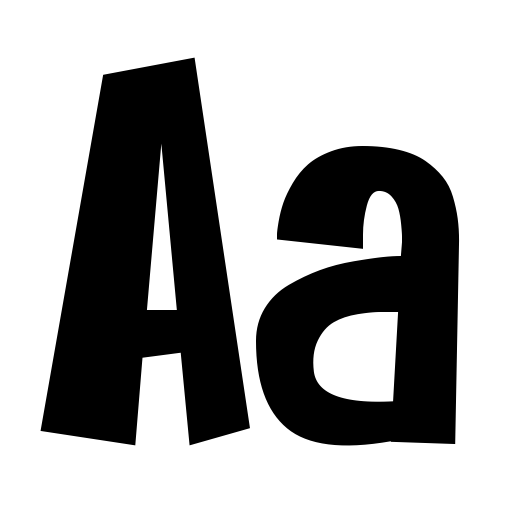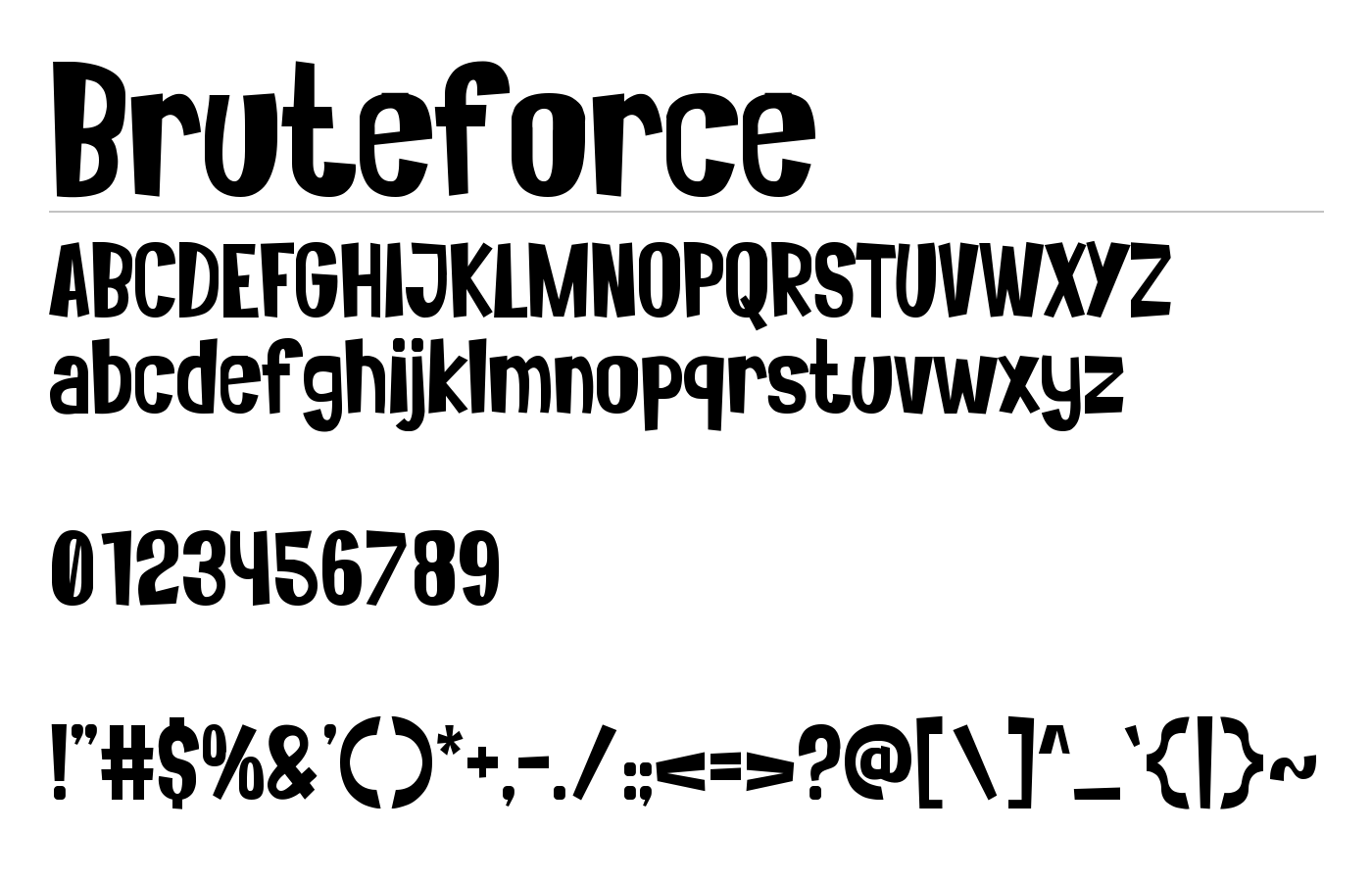
Bruteforce Font is a bold, playful sans serif typeface with a quirky and slightly irregular design that adds character and energy to any text. Its chunky weight and condensed width create a strong presence, while the uneven letter shapes and subtle curves give it a fun, hand-crafted feel perfect for informal and creative projects. This font works well for eye-catching headlines, posters, branding, and any design needing a lively, dynamic touch.
Bruteforce Font
About Bruteforce Font
| Font family | Bruteforce Font |
| Designer | MODESTYPE TEAM |